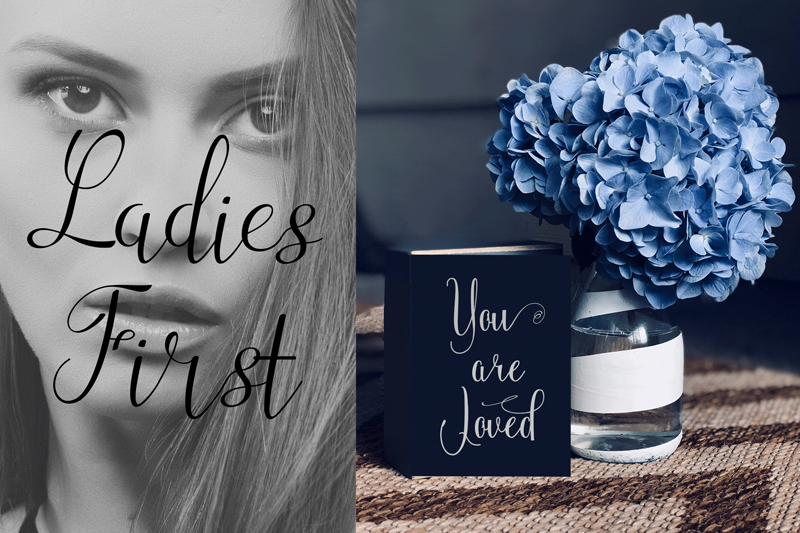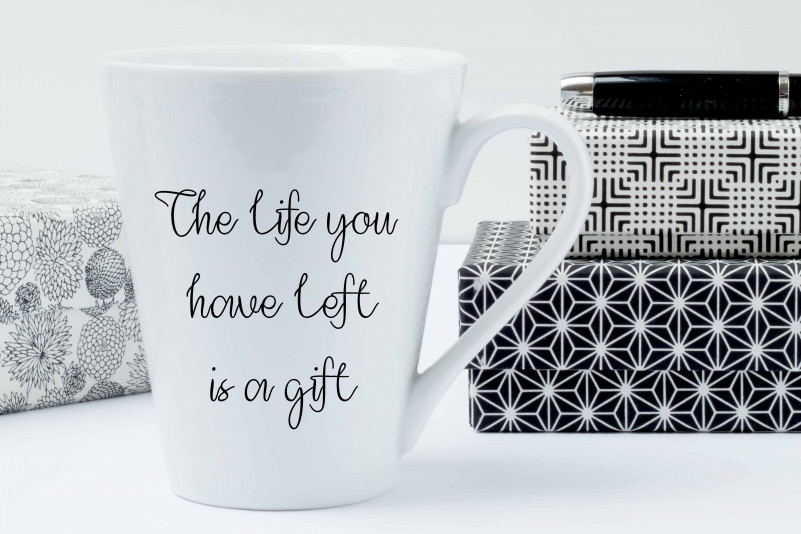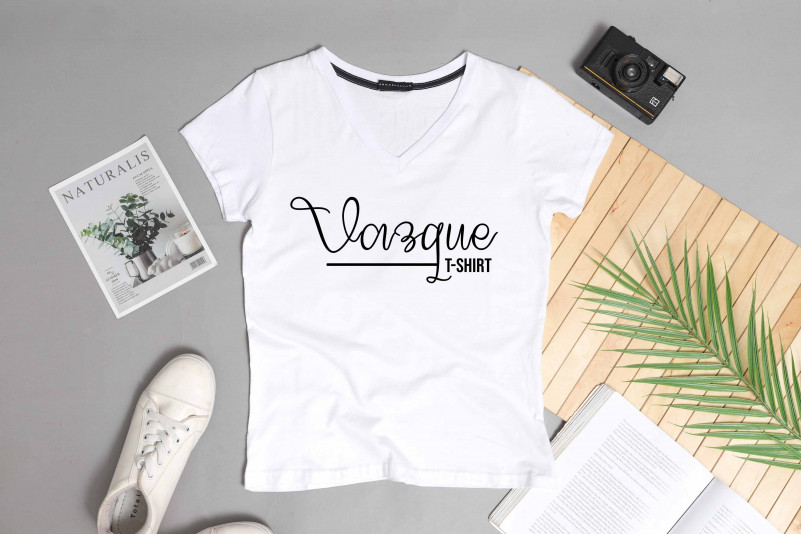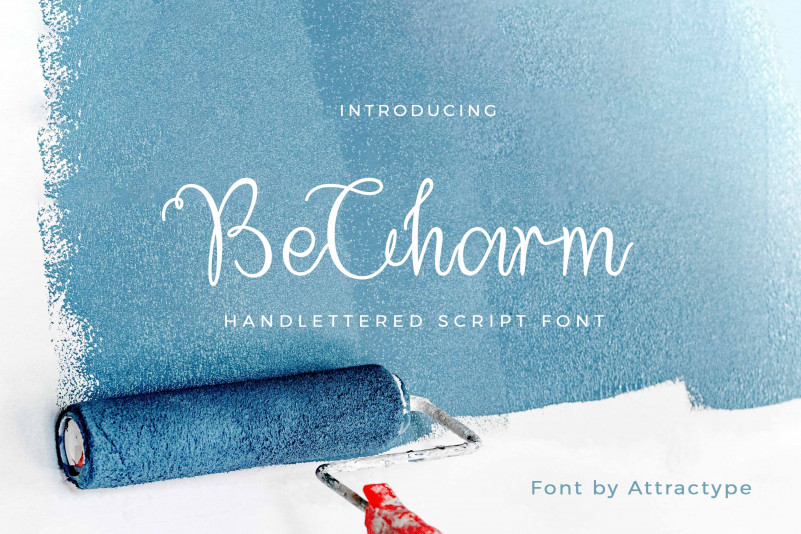
BeCharm Font
BeCharm Handwritten Font is a dazzling script font. This font is neatly crafted and highly detailed. Whatever the topic, this font will be a wonderful asset to your font library, as it has the potential to enhance any creation.